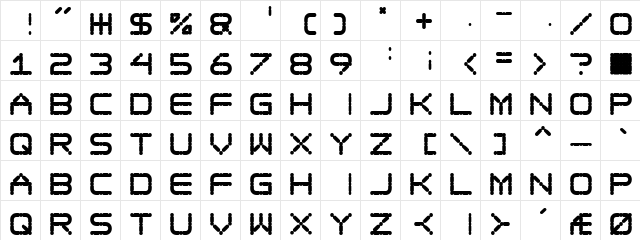
Ego trip Fat Regular Font Preview
Ego trip Fat Regular
Ego trip Fat Regular Font Details
Design Context for Ego trip Fat Typeface
Ego trip Fat is a composed and adaptable typeface that performs quietly and consistently across a wide range of design contexts.